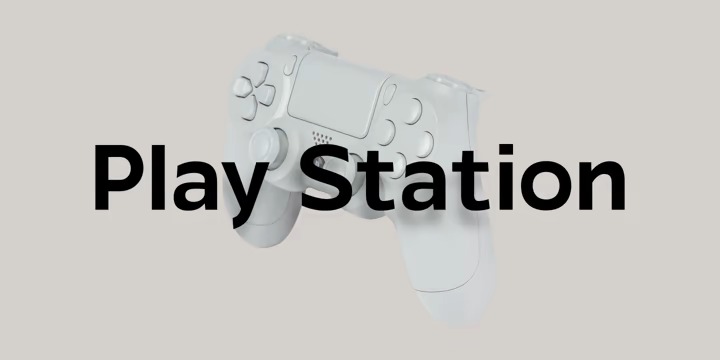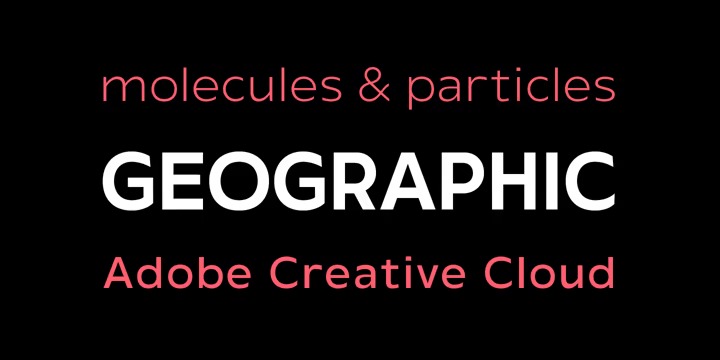
Rafine Sans Serif Font
It’s a modern sans serif typeface manufactured by Fontmachine . With bold condensed stroke and fun character. This font is good for logo design, Social media, Movie Titles, Books Titles, a short text even a long text letter and good for your secondary text font with signature or script typeface. Make a stunning work with Rafine Font.